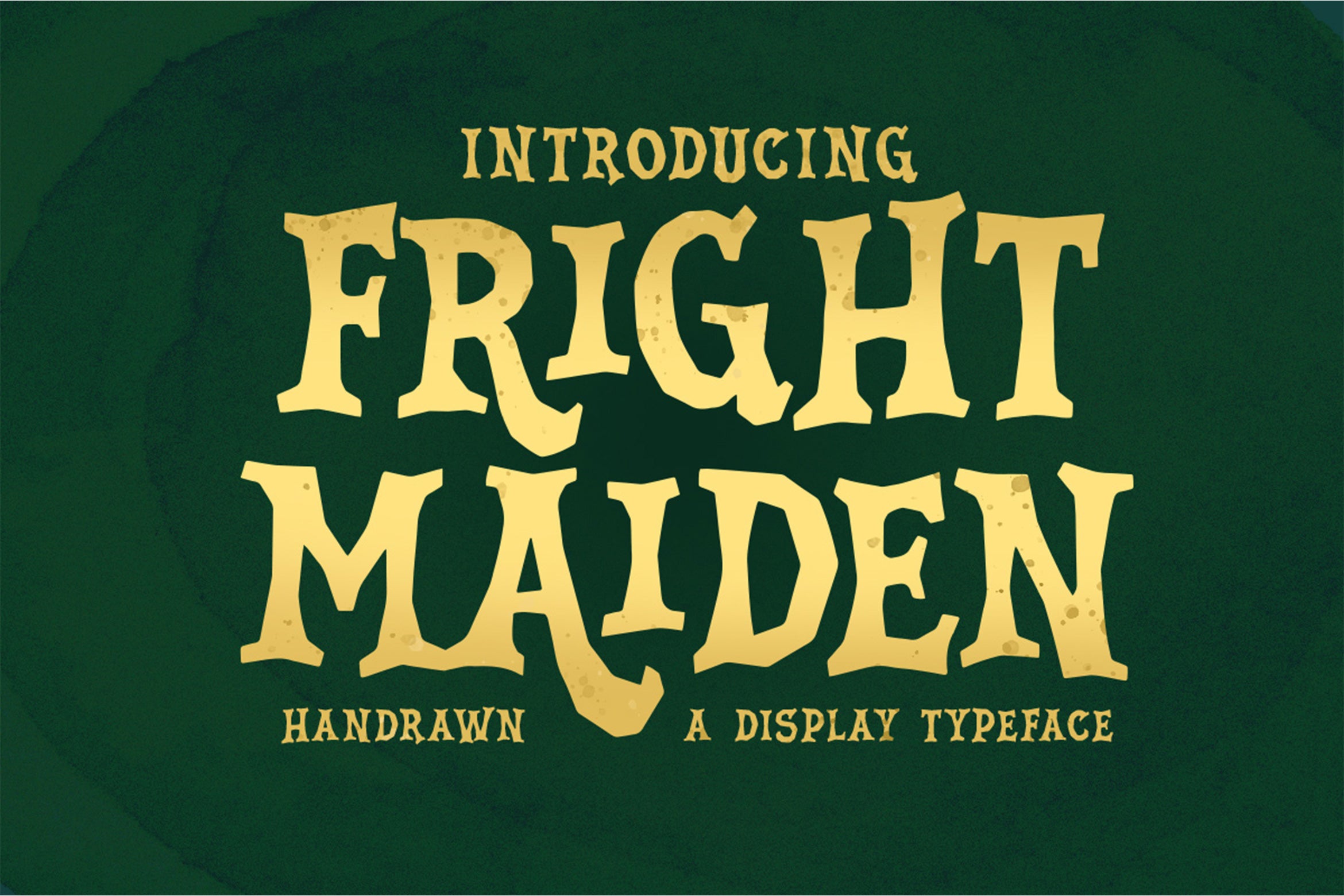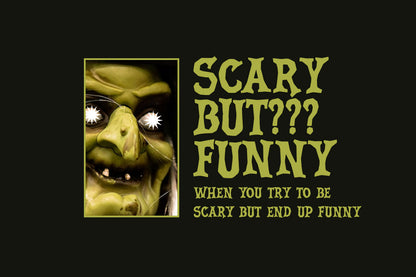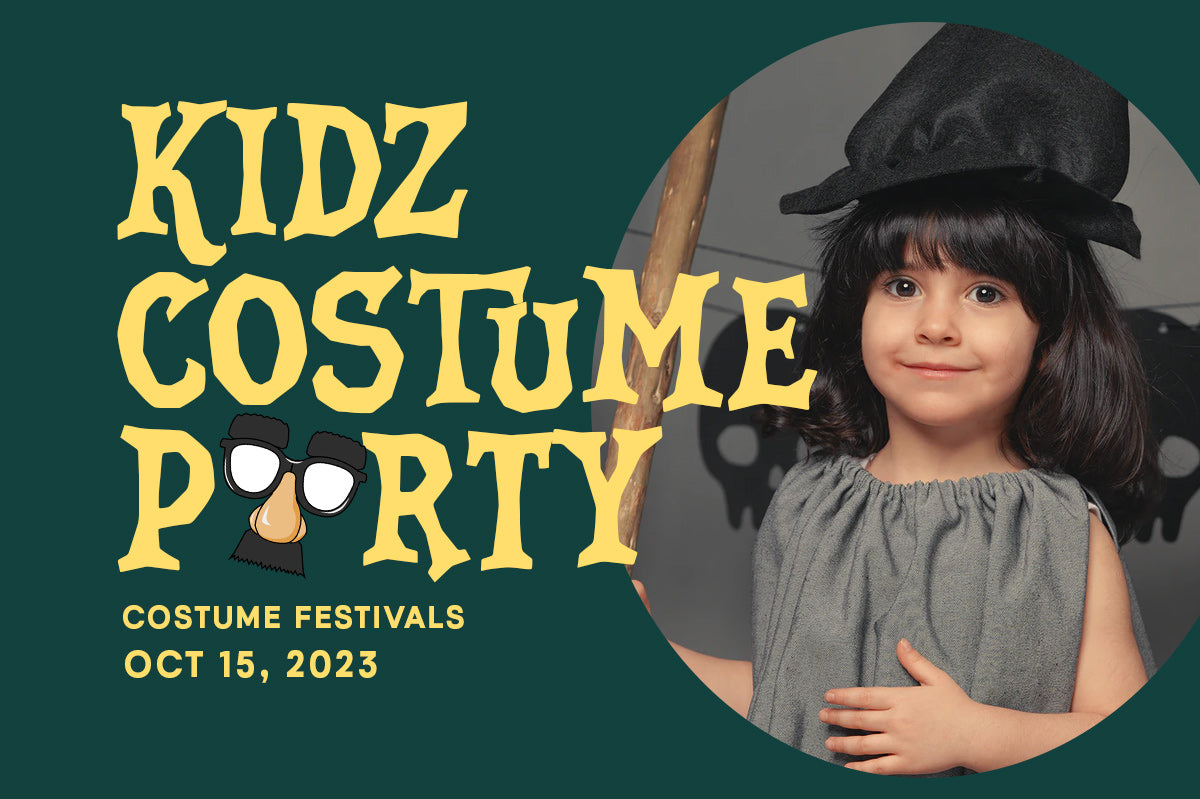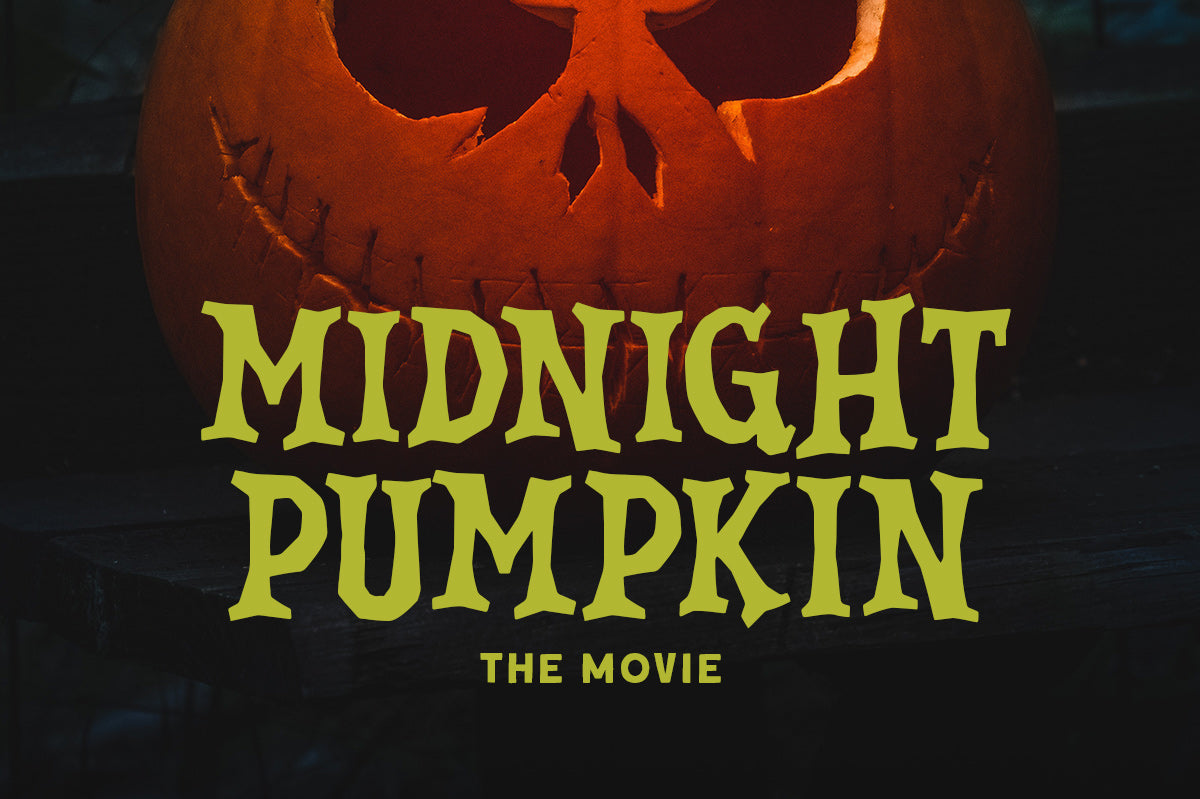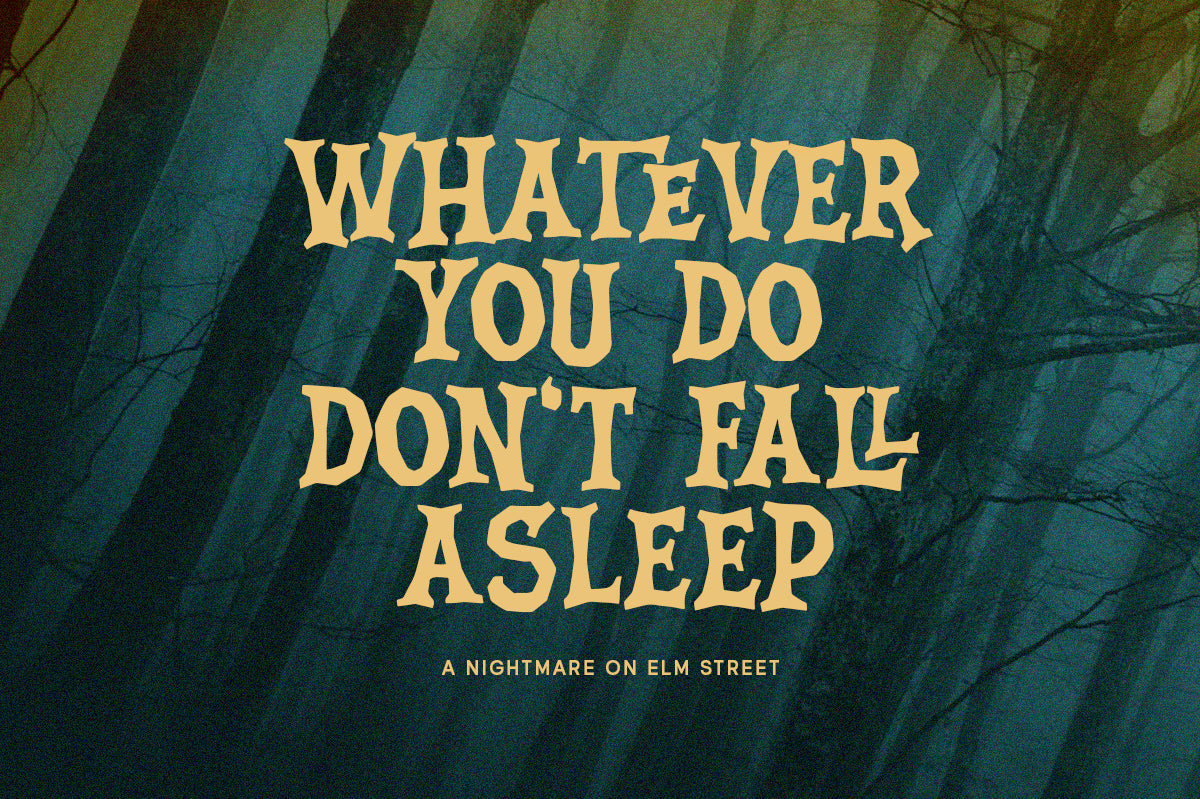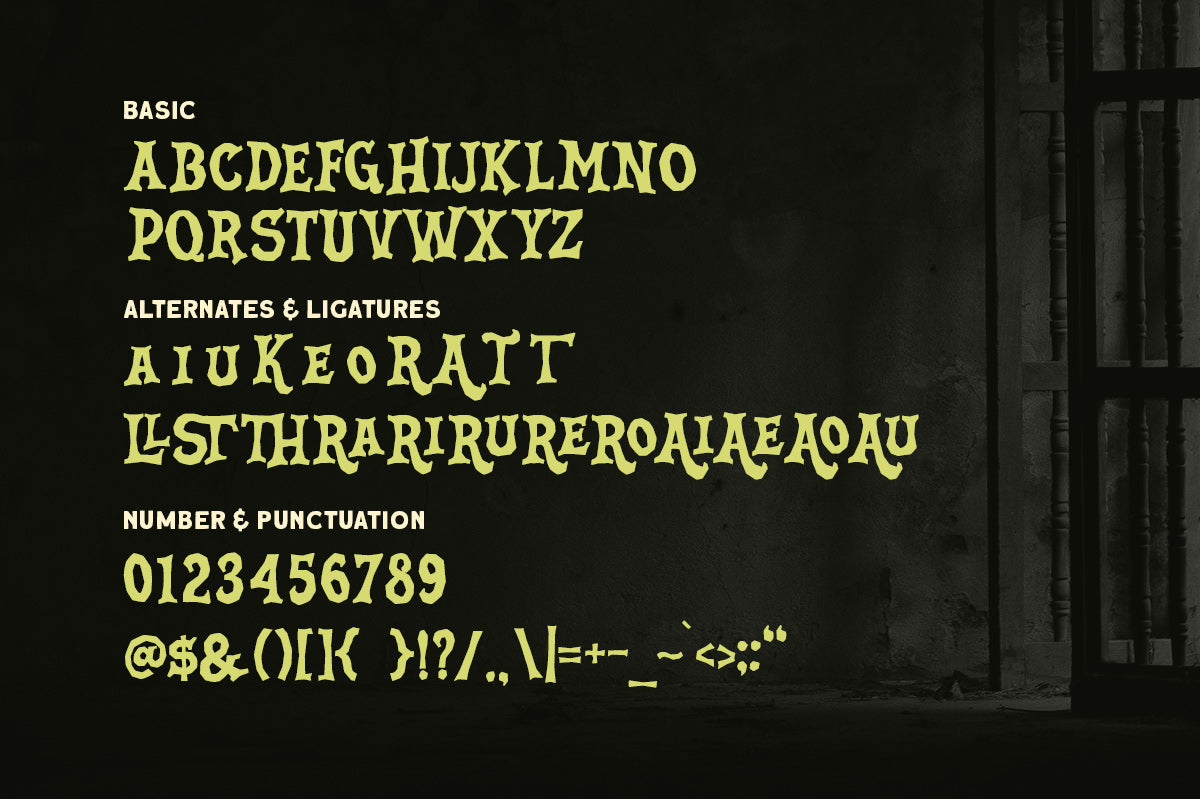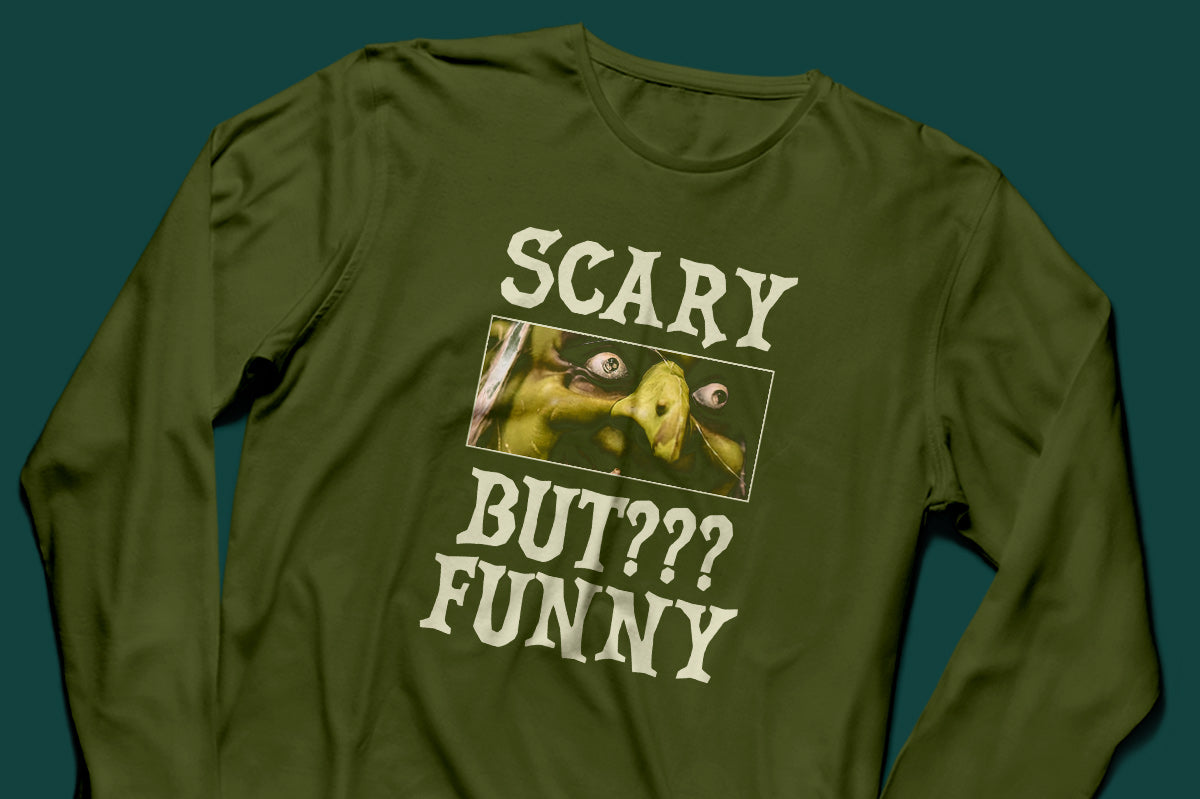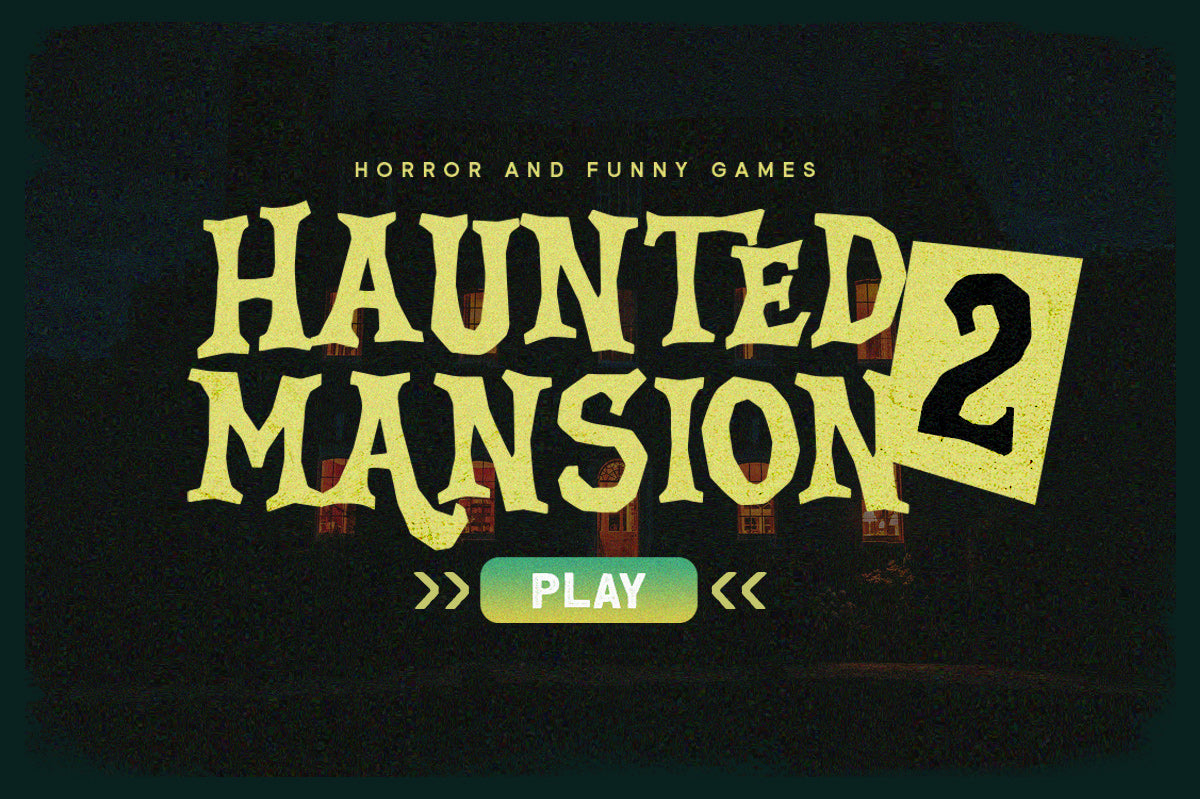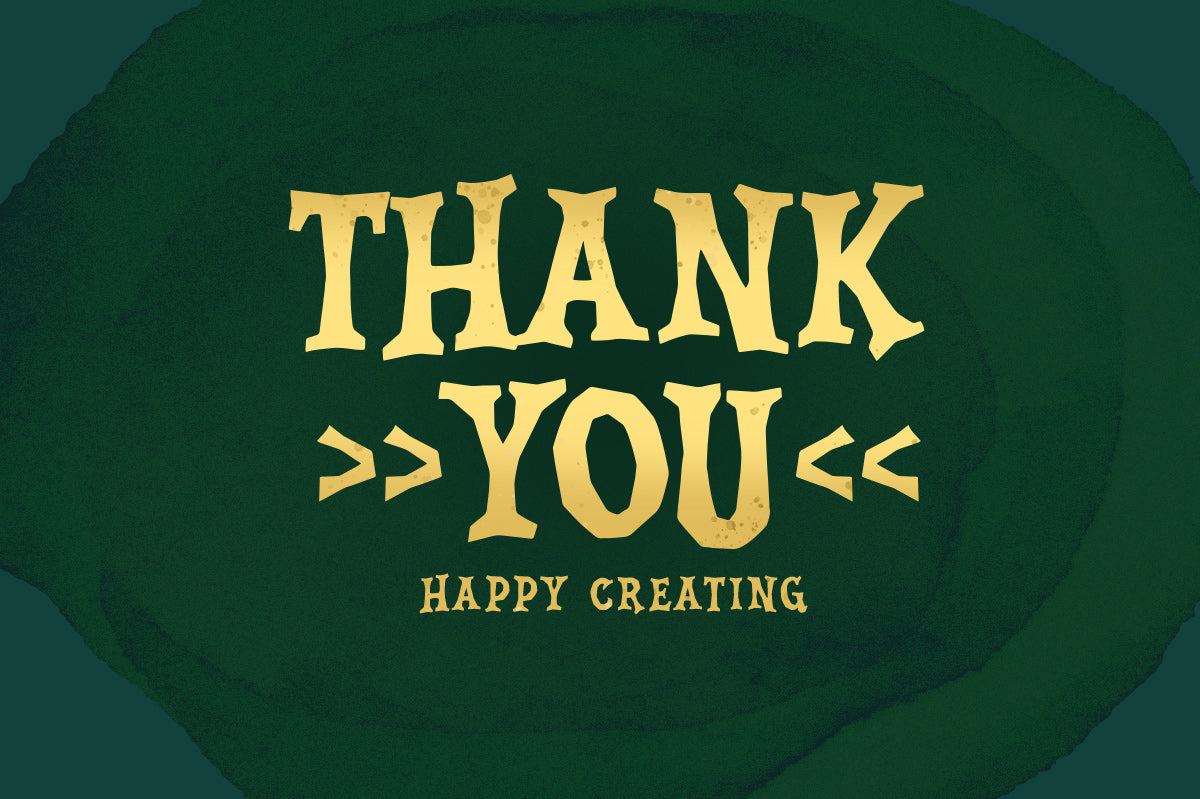
Fright Maiden
Fright Maiden - Horror Font
Introducing, Fright Maiden - A serif typeface font with a bold and horror feel. This font has a unique shape, very suitable for horror, thriller, and spooky theme design. This font is also perfectly suited for use in various formal forms, such as logos, invitations, labels, magazines, books, novels, or any type of advertising purpose.
altermate and ligatures
numbers and punctuation